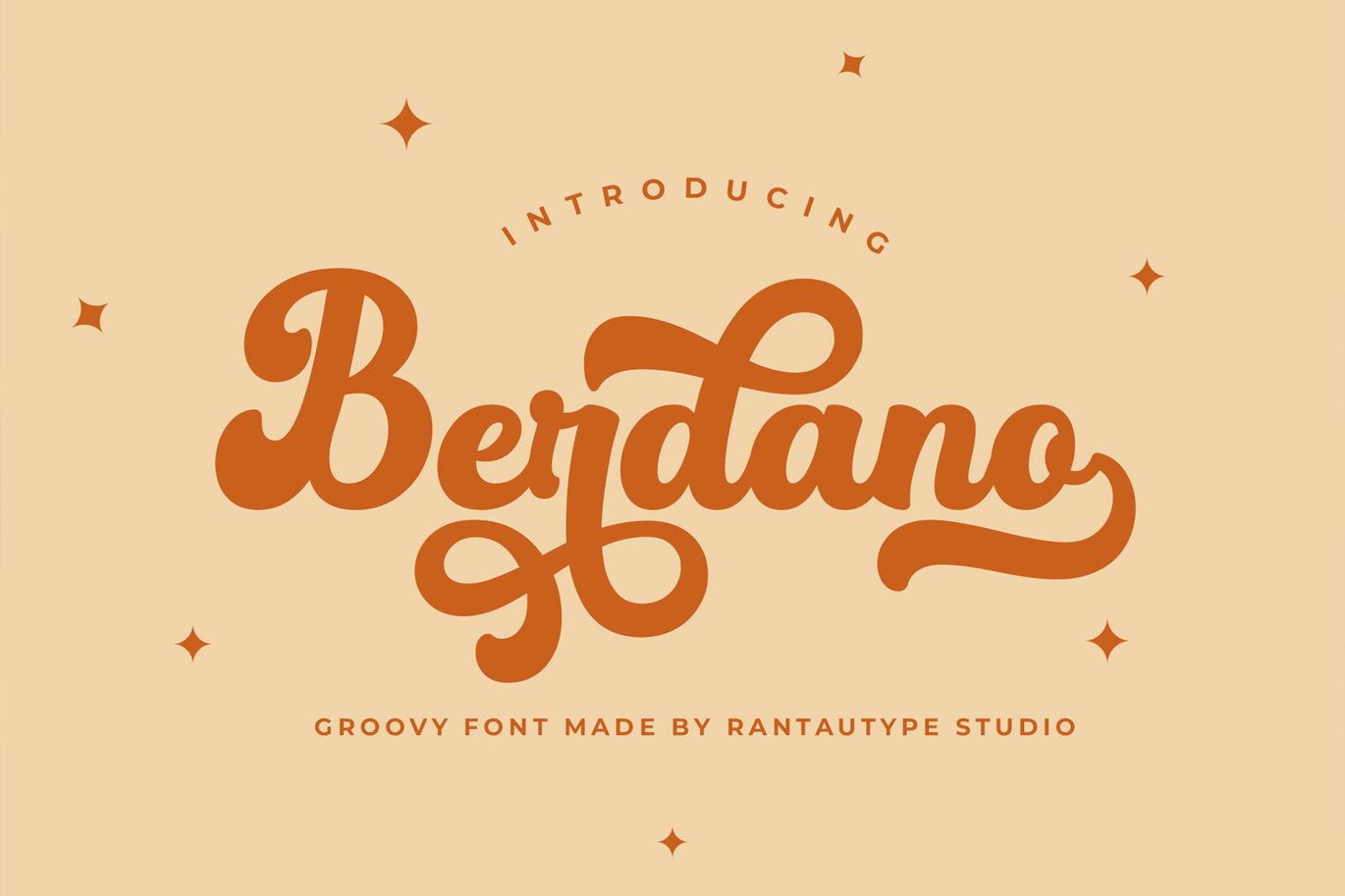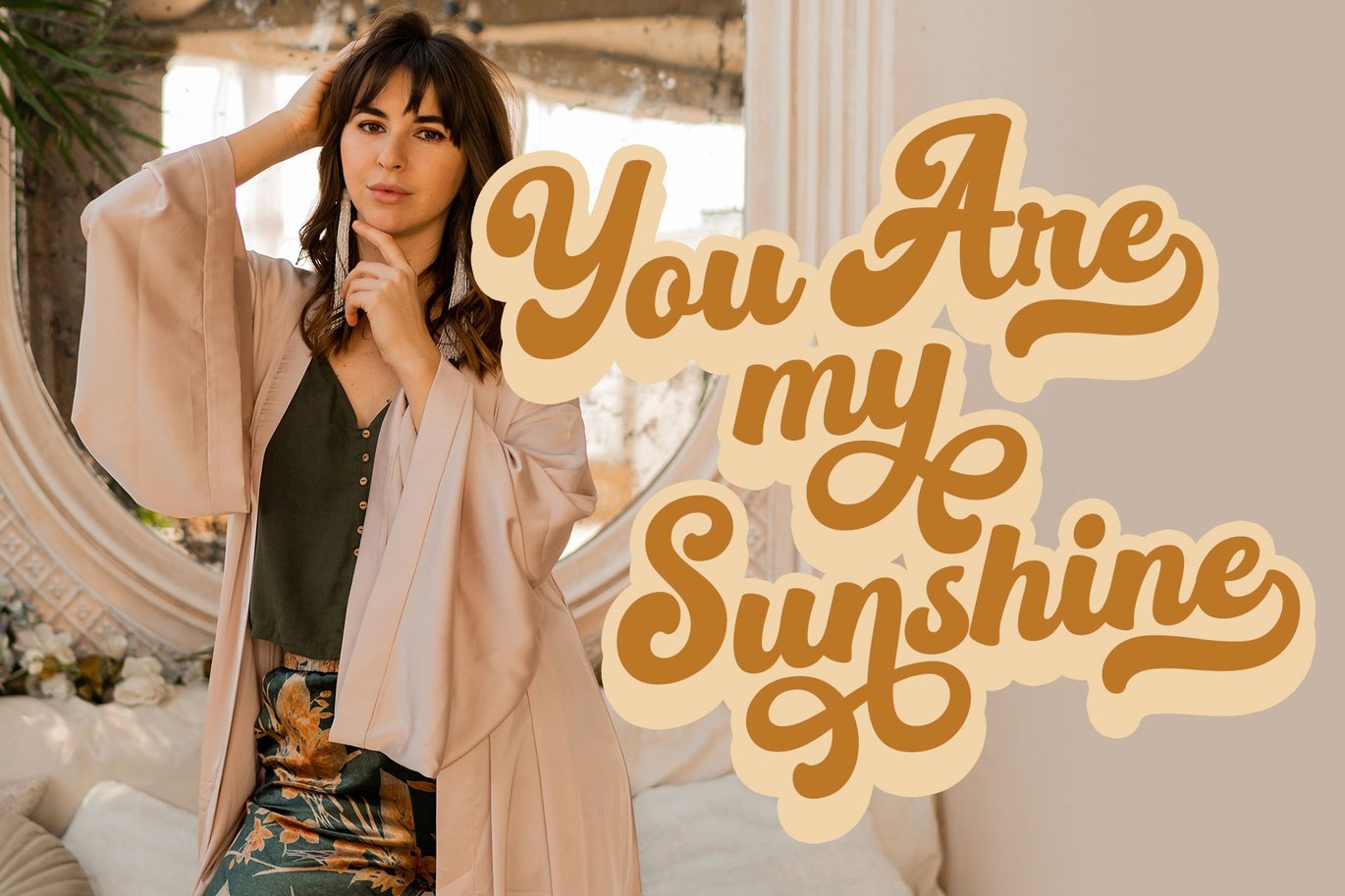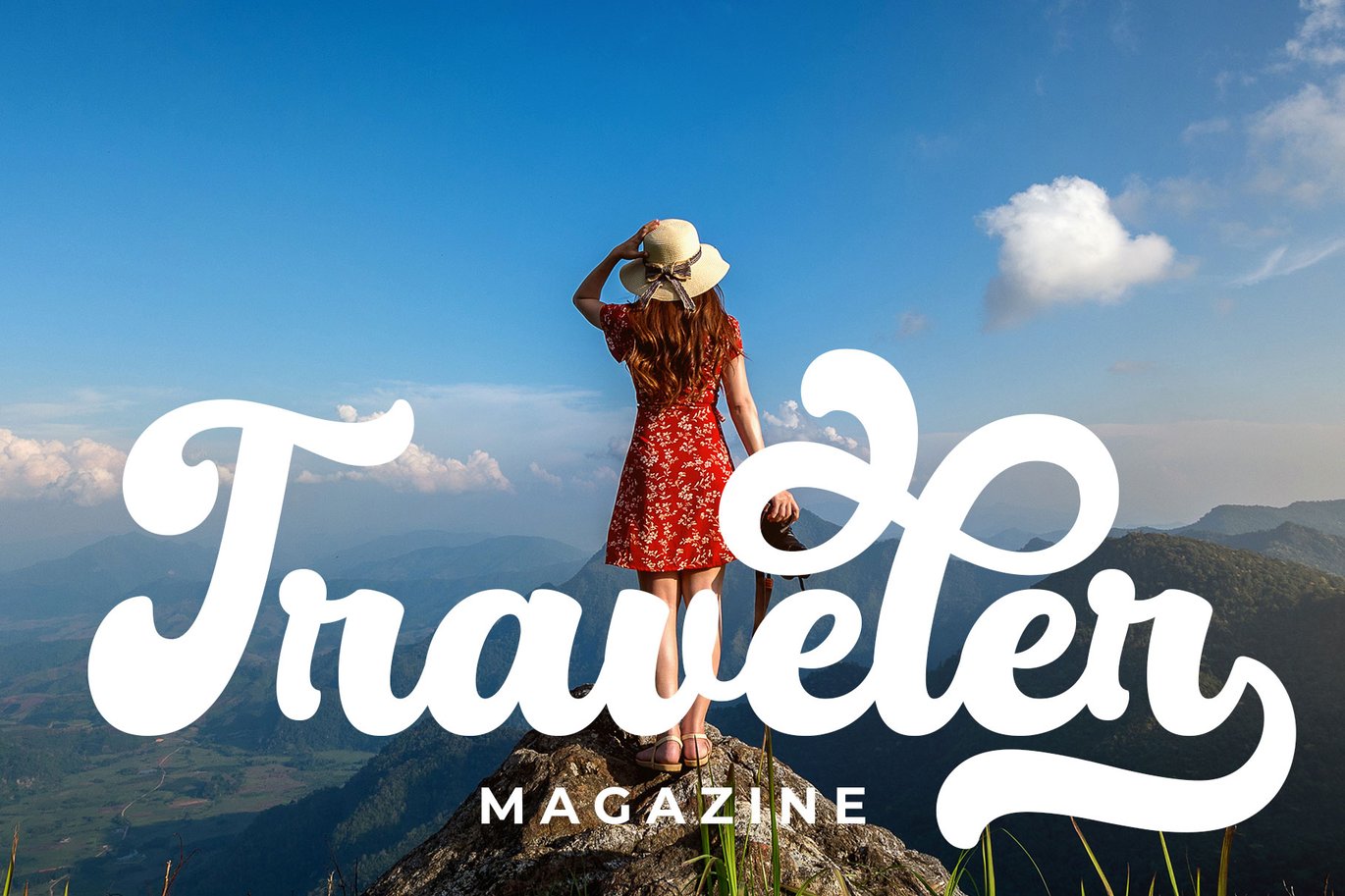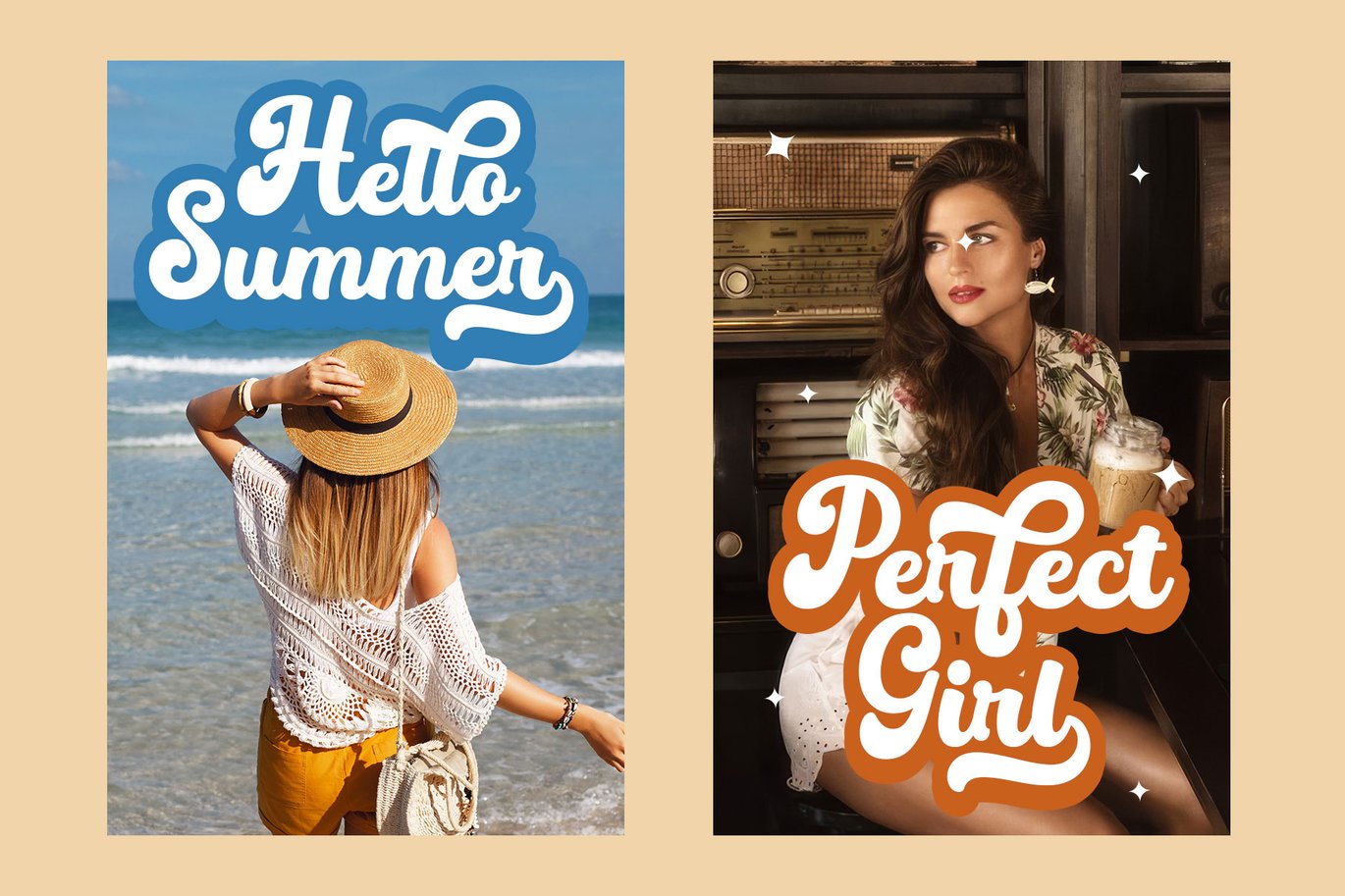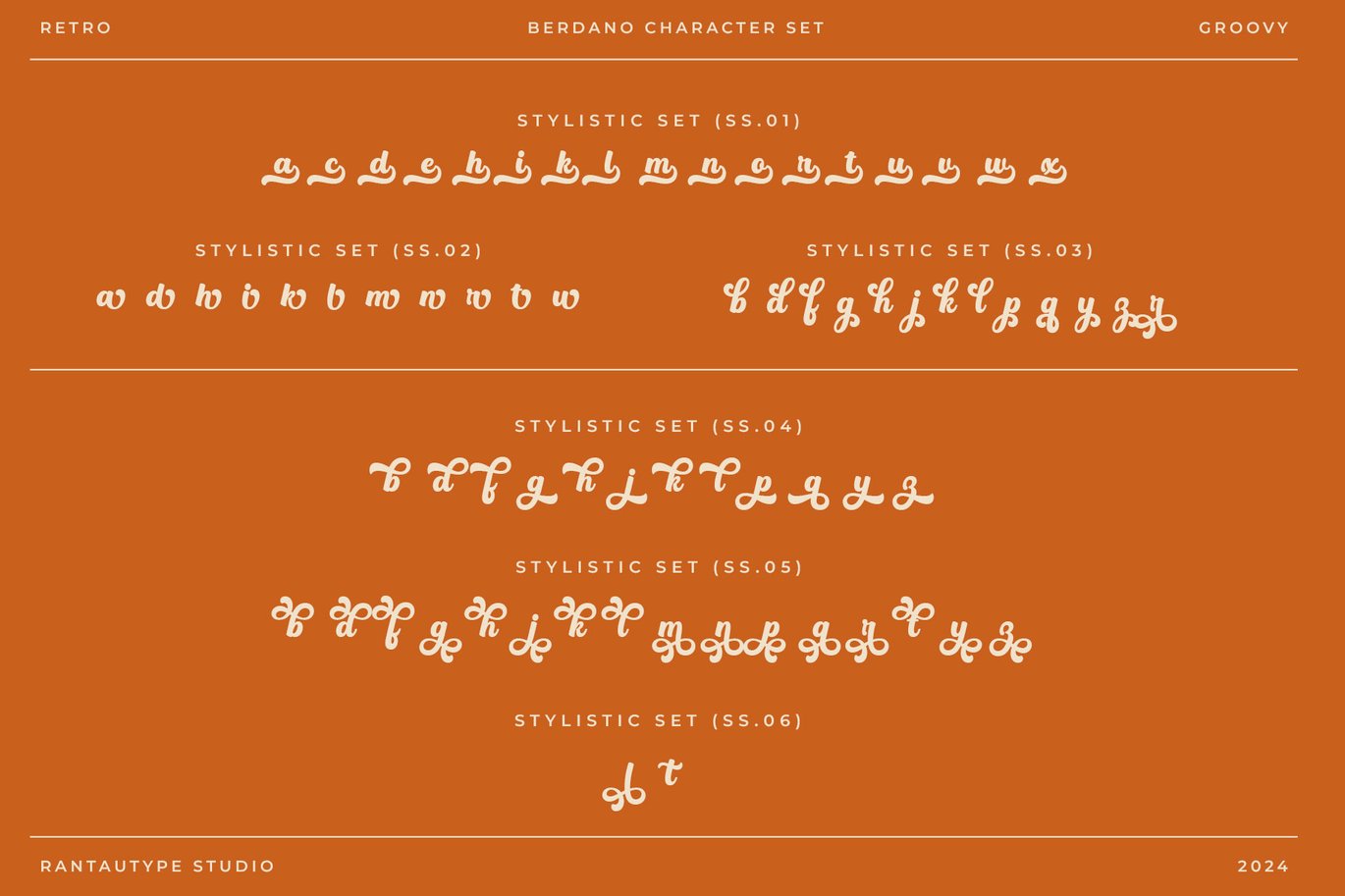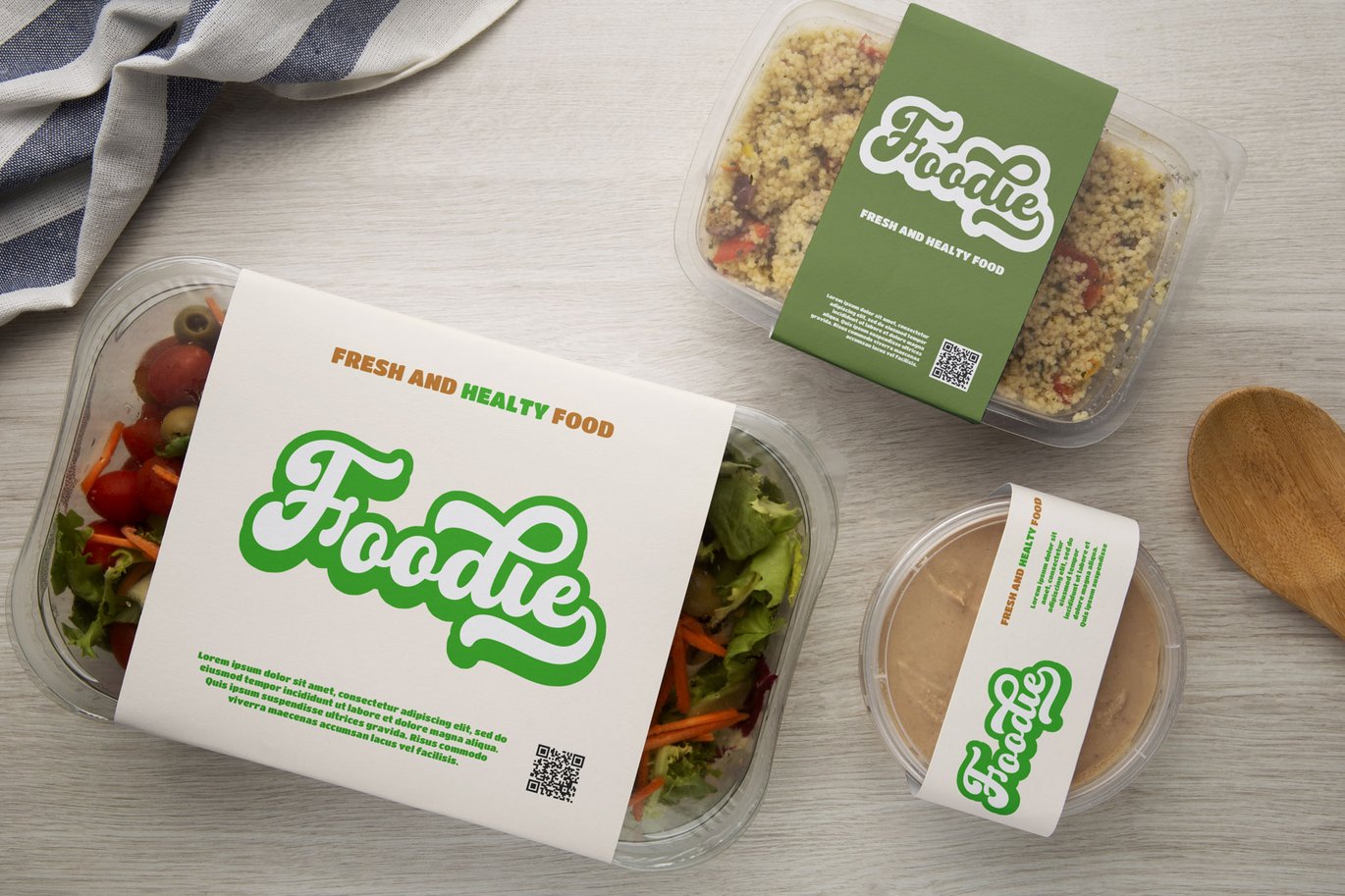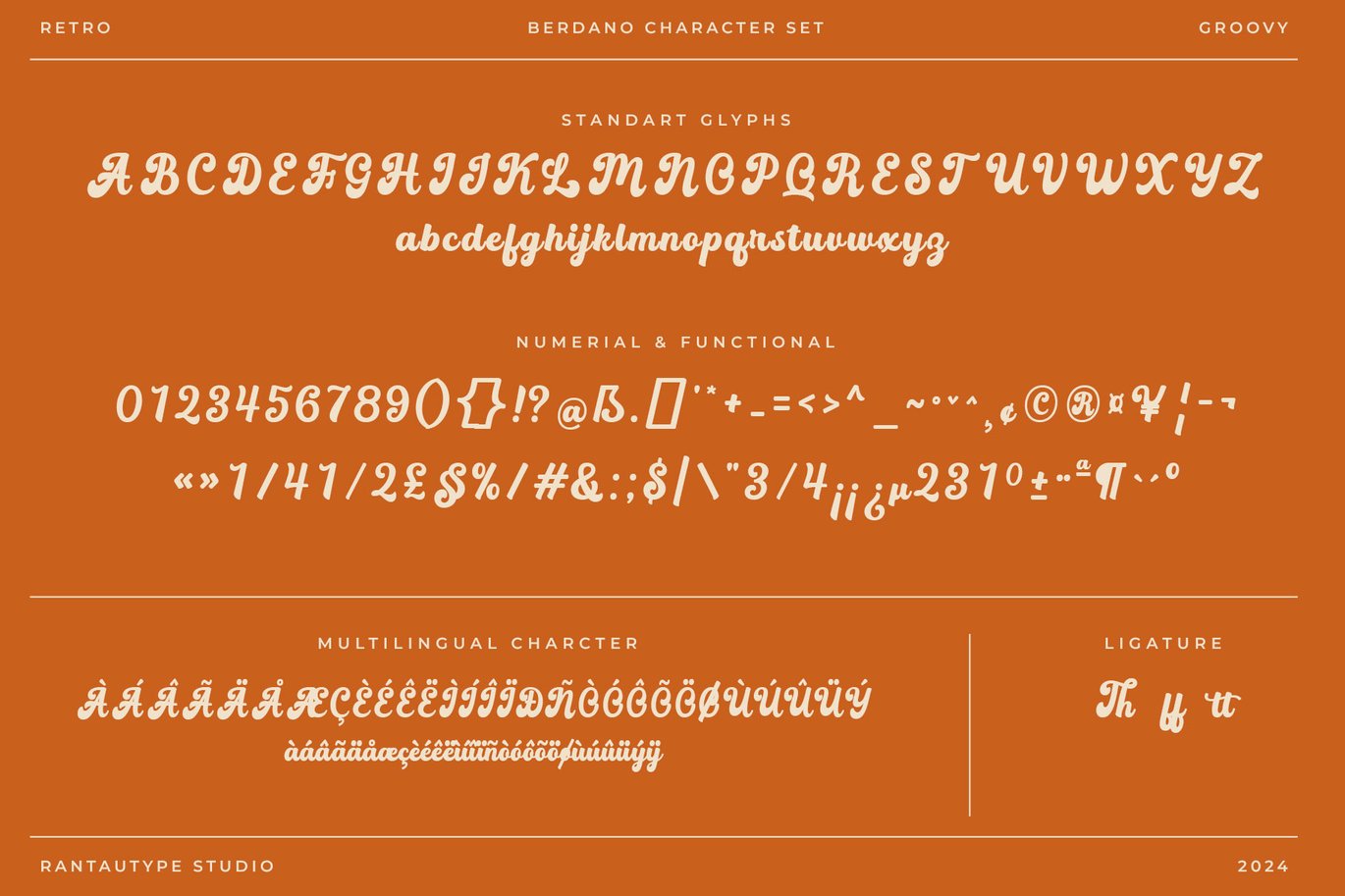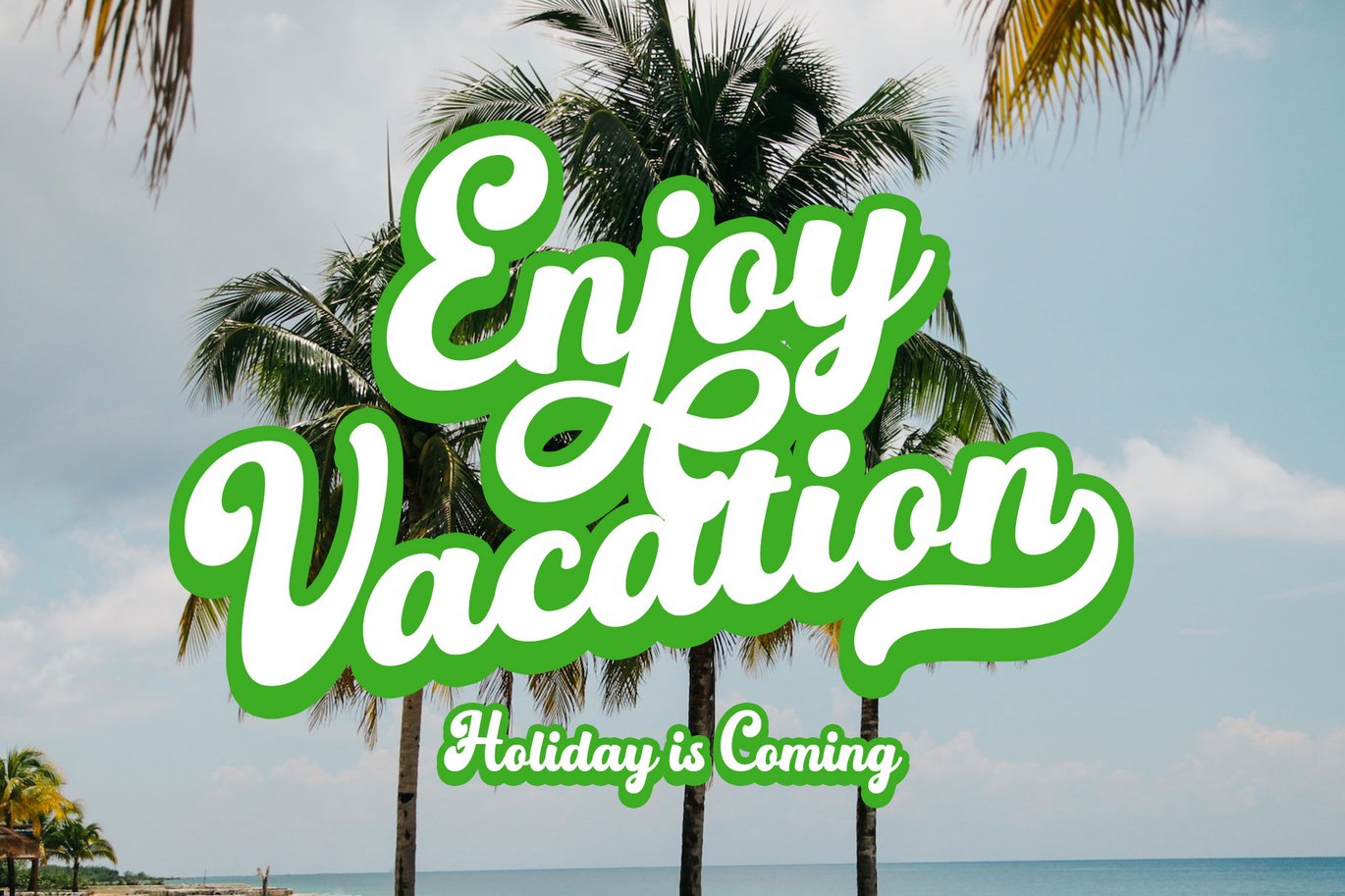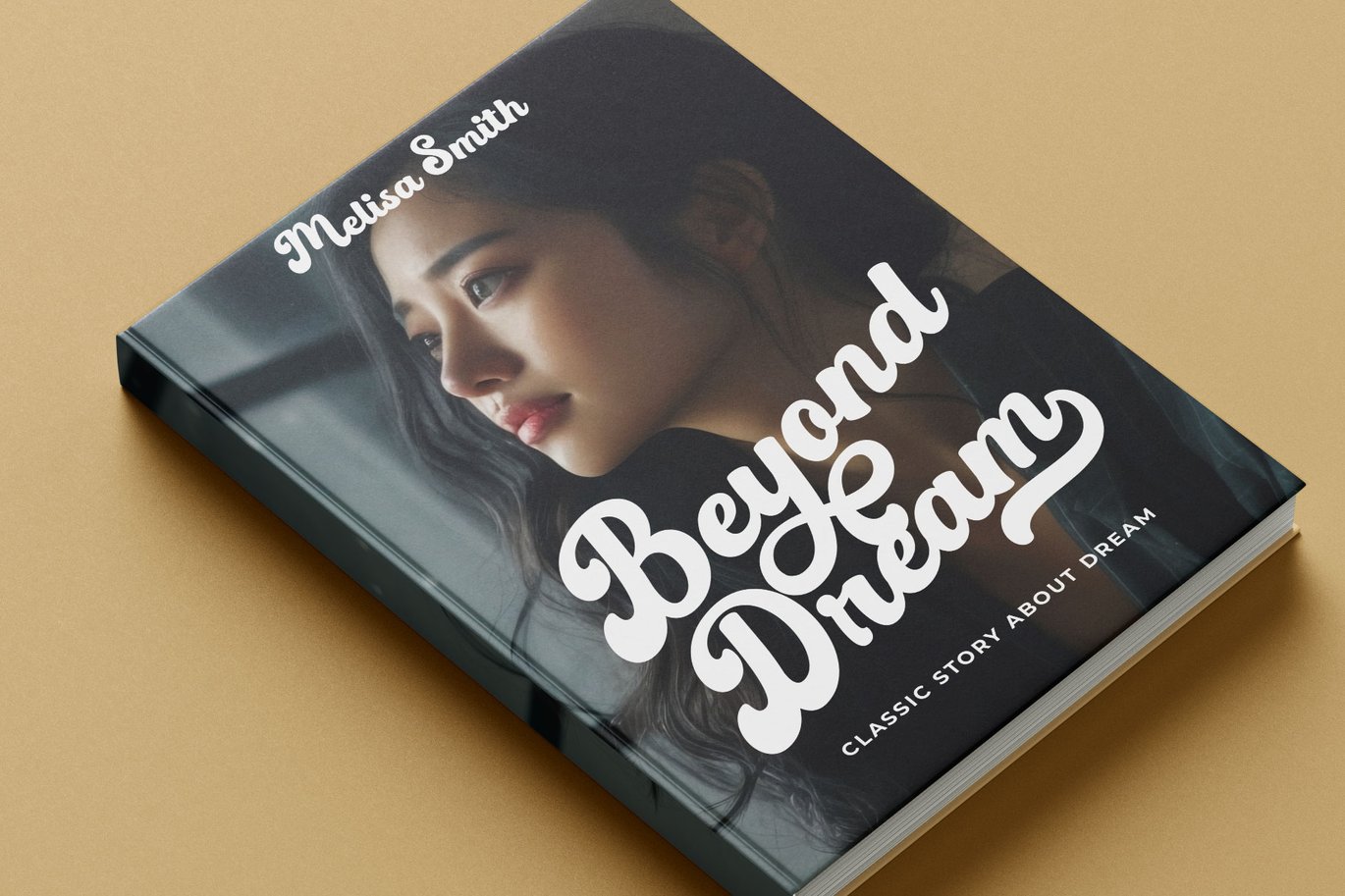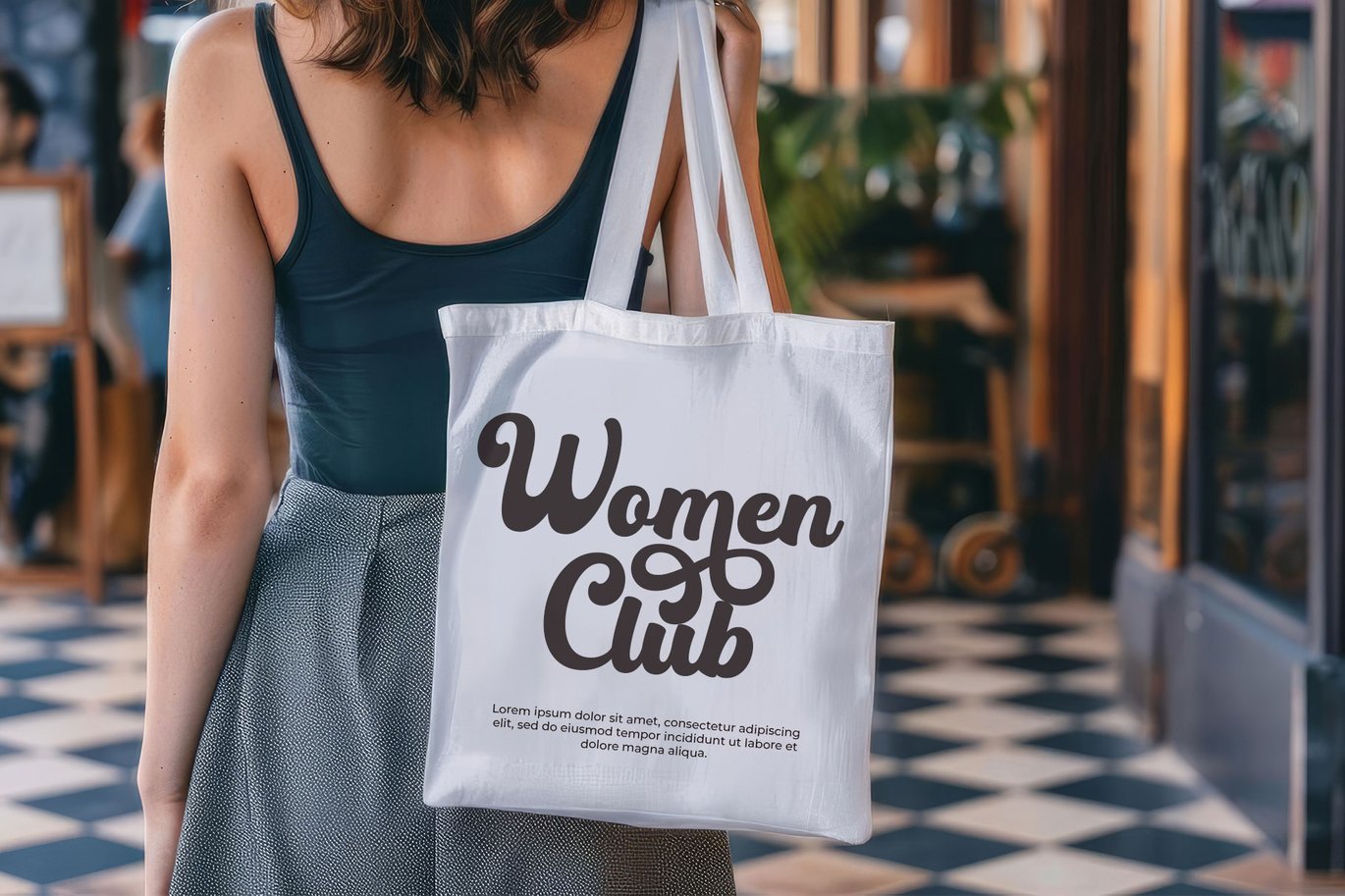
Berdano Groovy Font
Berdano is a groovy font with retro and cheerful vibe look. Berdano is perfectly choice for any creative endeavor, lifestyle design such as logos, title, watermark on photography, cover, branding, display and magazine, wedding event, corporate brand, quotes, album cover, business card, business project and many other design project with retro or groovy taste.
- Standart Gylphs
- Ligature and alternate